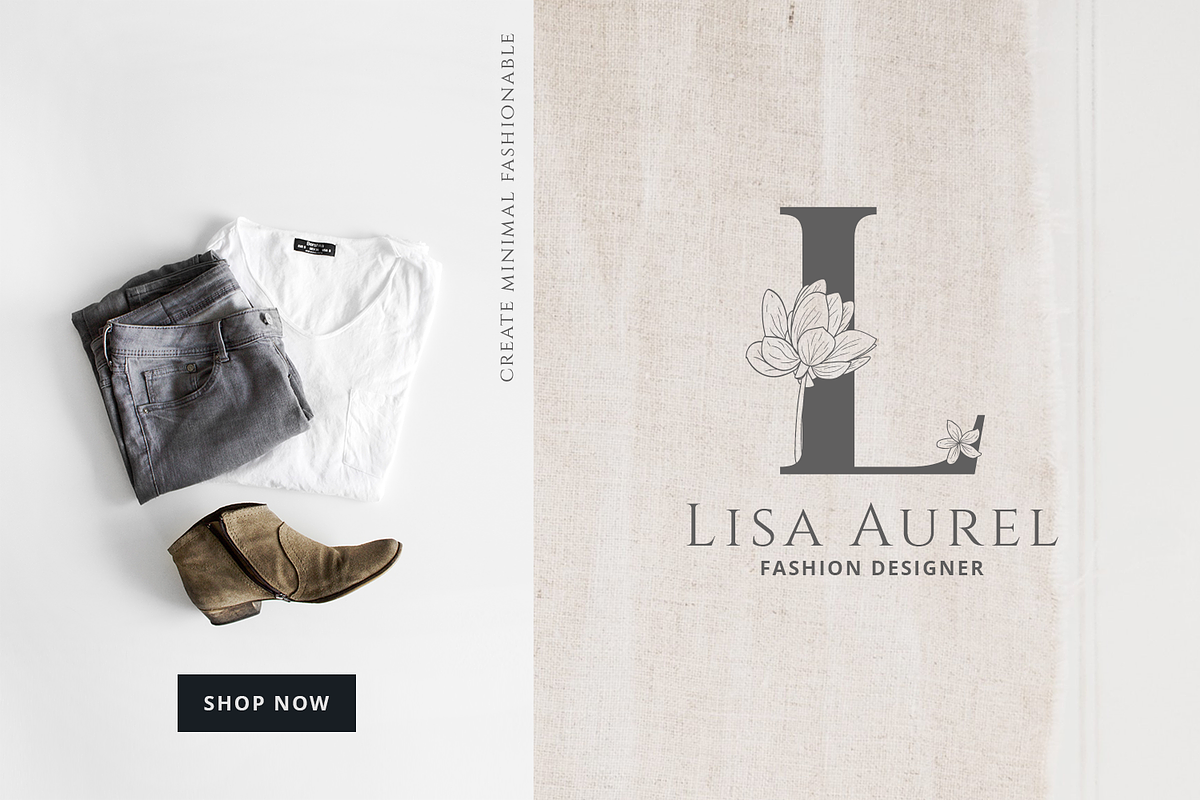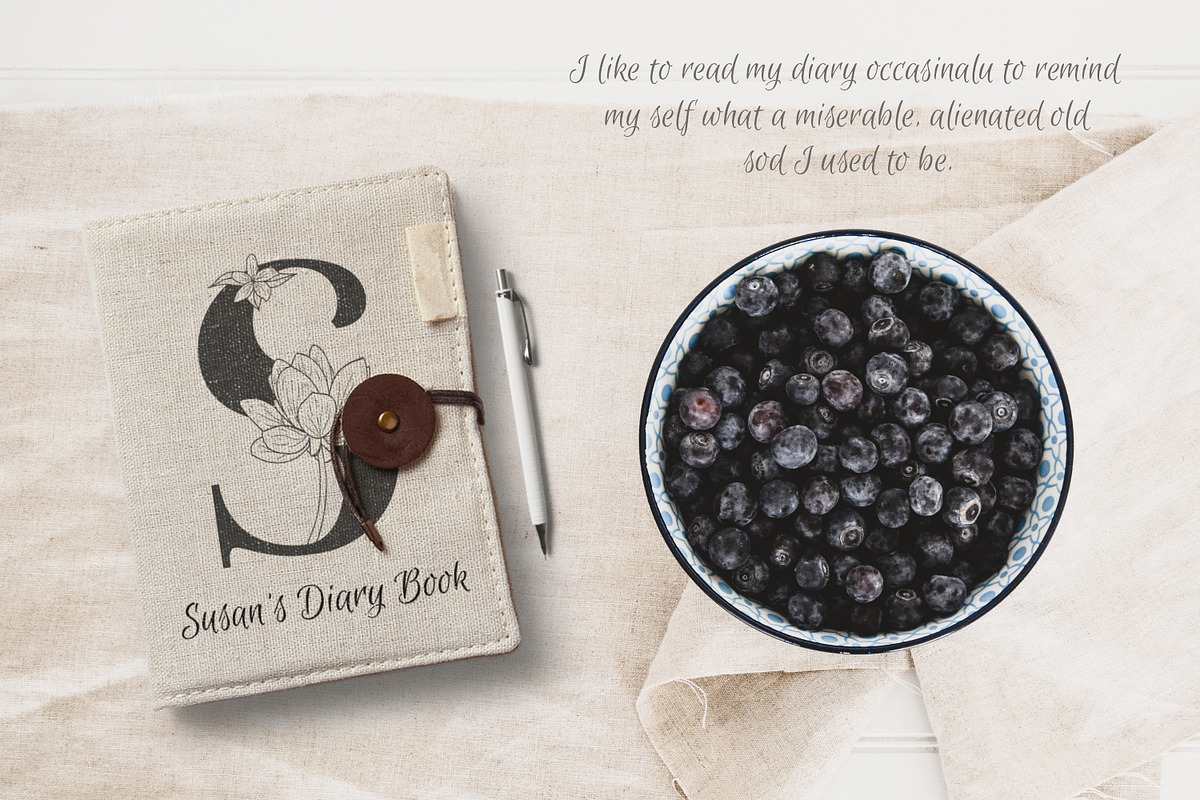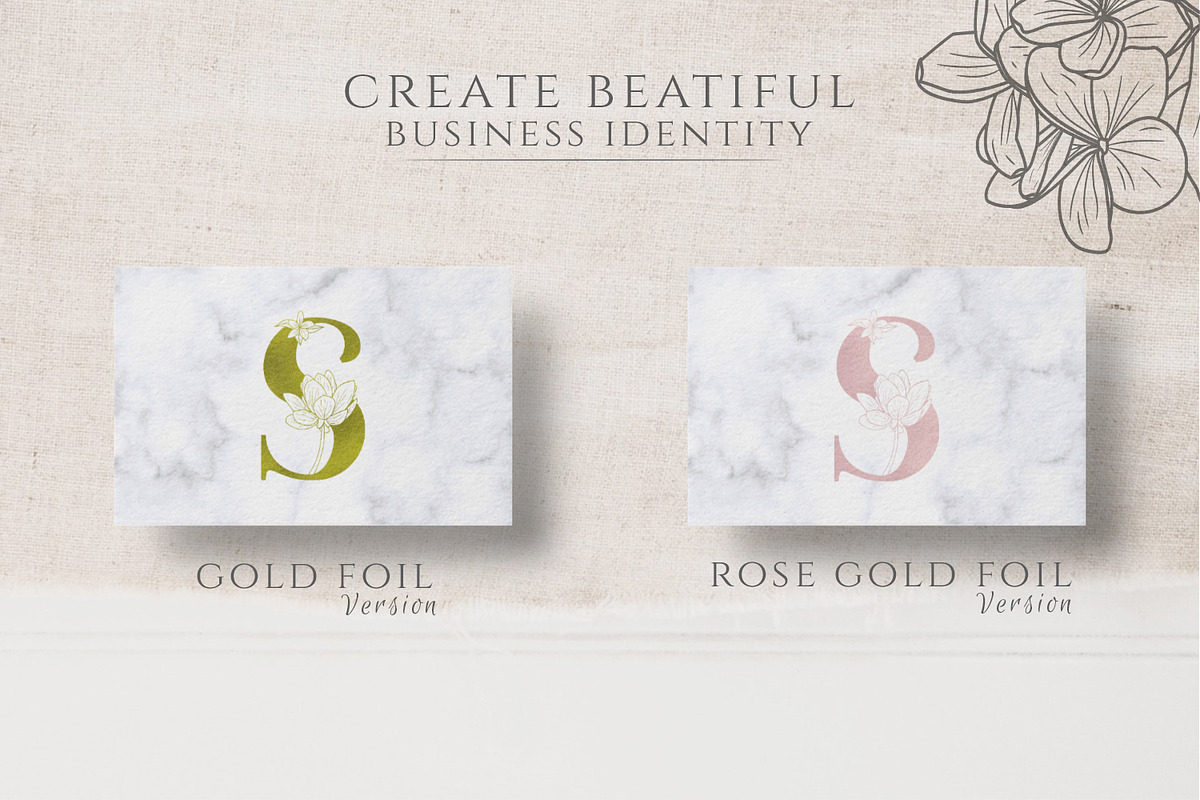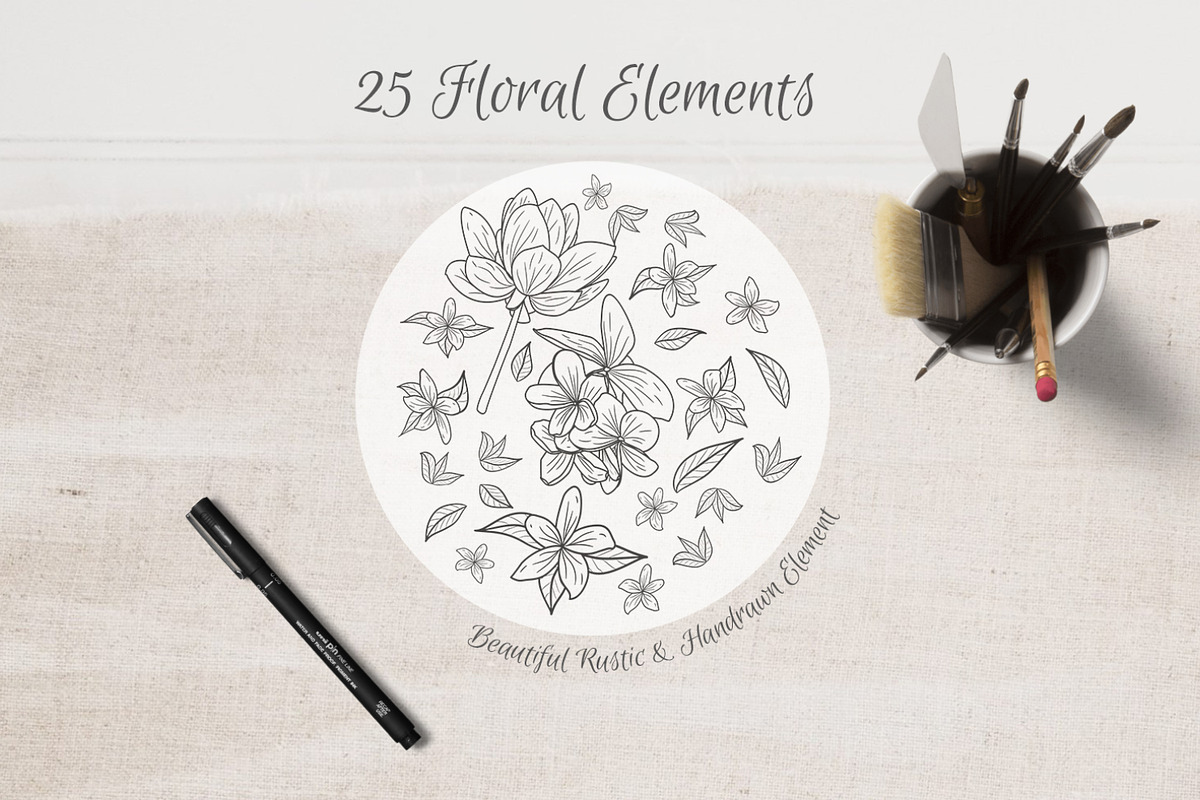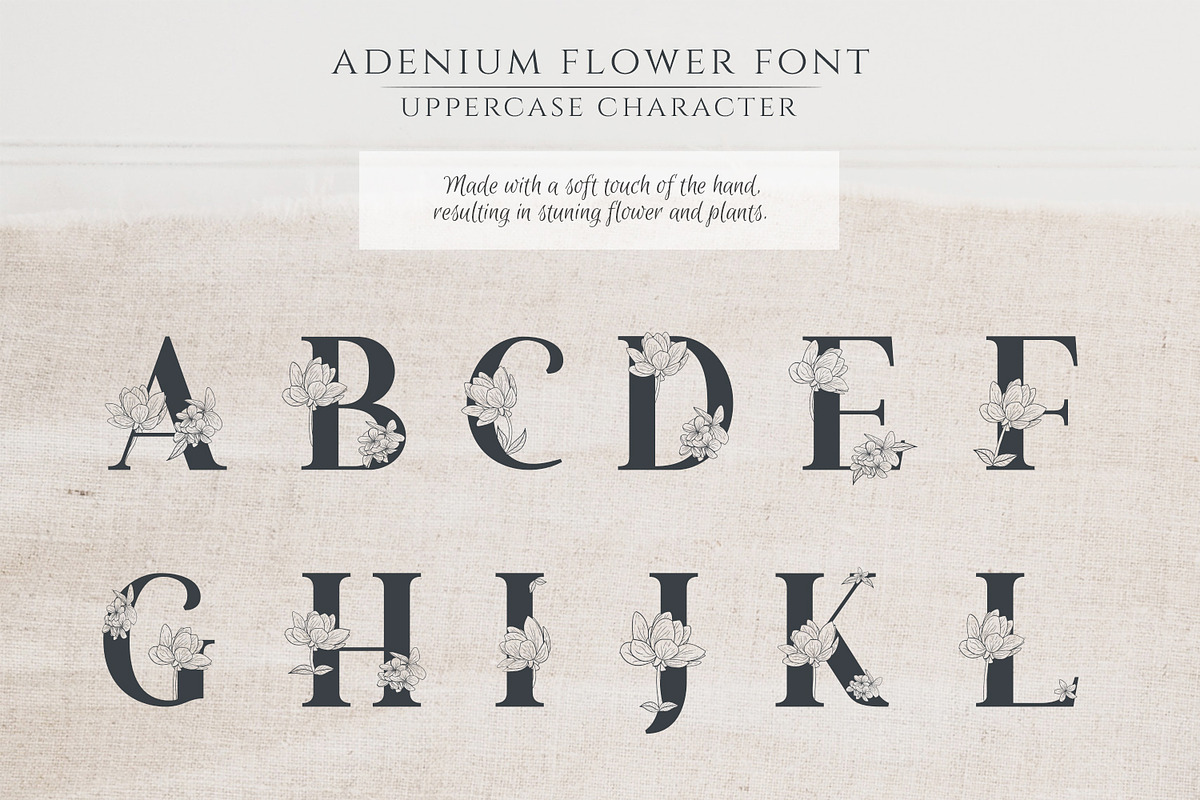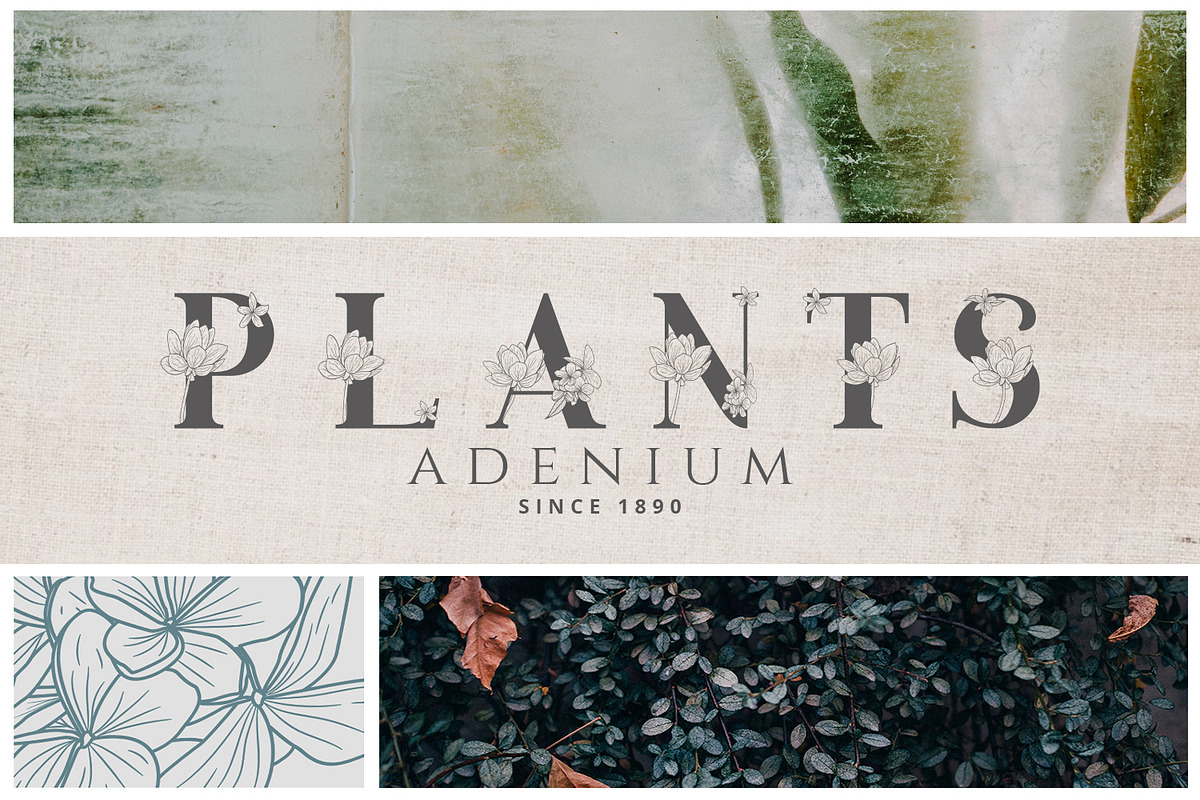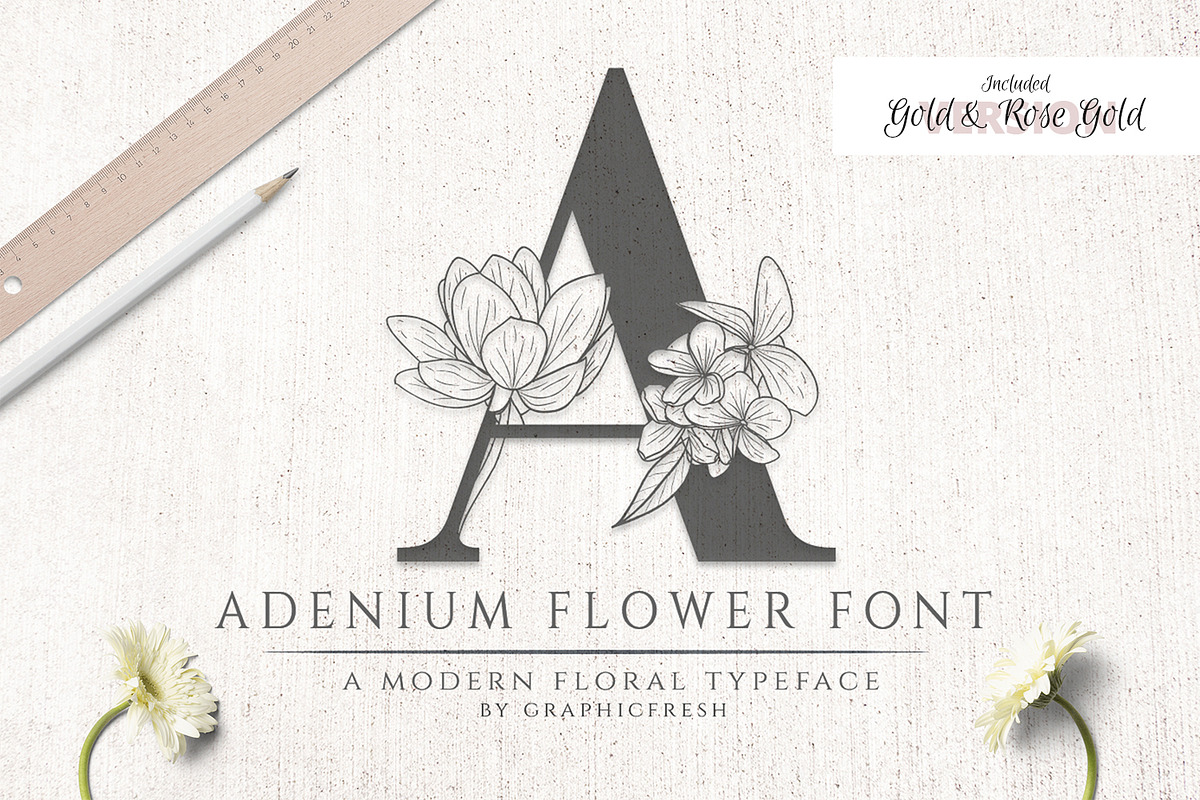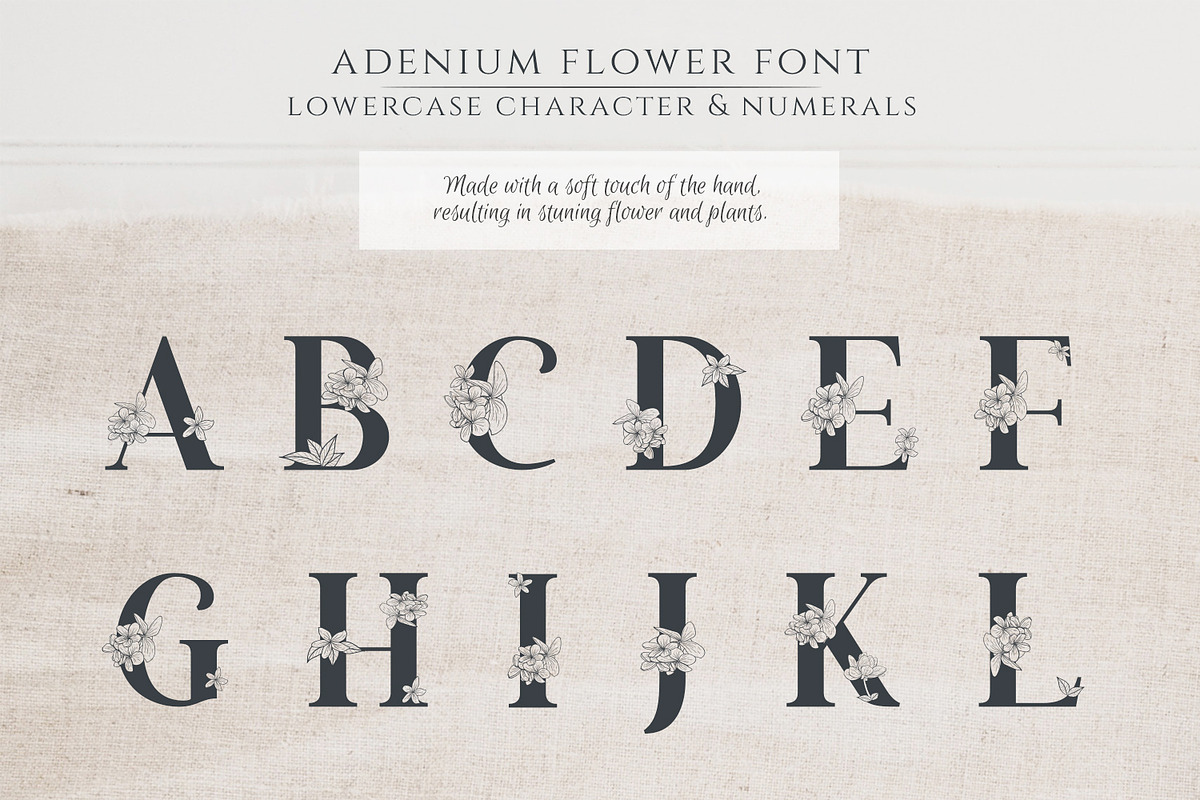
Adenium Font + Gold & Rose Gold Foil
Adenium Flower Font + Gold & Rose Gold Foil (PNG)
This font is inspired by frangipani flowers. In Latin it is named "Adenium". A flower that is very beautiful when viewed. So, I am applying it to a font. Serif style is perfect for this flower. It is ideal for weddings in the jungle, sea and cruise style, for branding and logos - restaurant, hotels, beach resort and many more. This font will help to design a unique brand, stylish logotype, graceful wedding invitation to the event or conceptual business card in the minutes.
This font is made in two versions of each character except numbers and signs. You will find different versions between uppercase and lowercase. When you use this font, you will feel a tremendous sensation in your design.
Adenium Gold and Rose Gold Alphabet:
26 Alphabet in a gold & rose gold foil effect (PNG)
10 Numbers from 0 – 9 (PNG)
Also included - Ampersand (&) Exclamation (!) and Question Mark (?) (PNG)
Adenium Flower Element